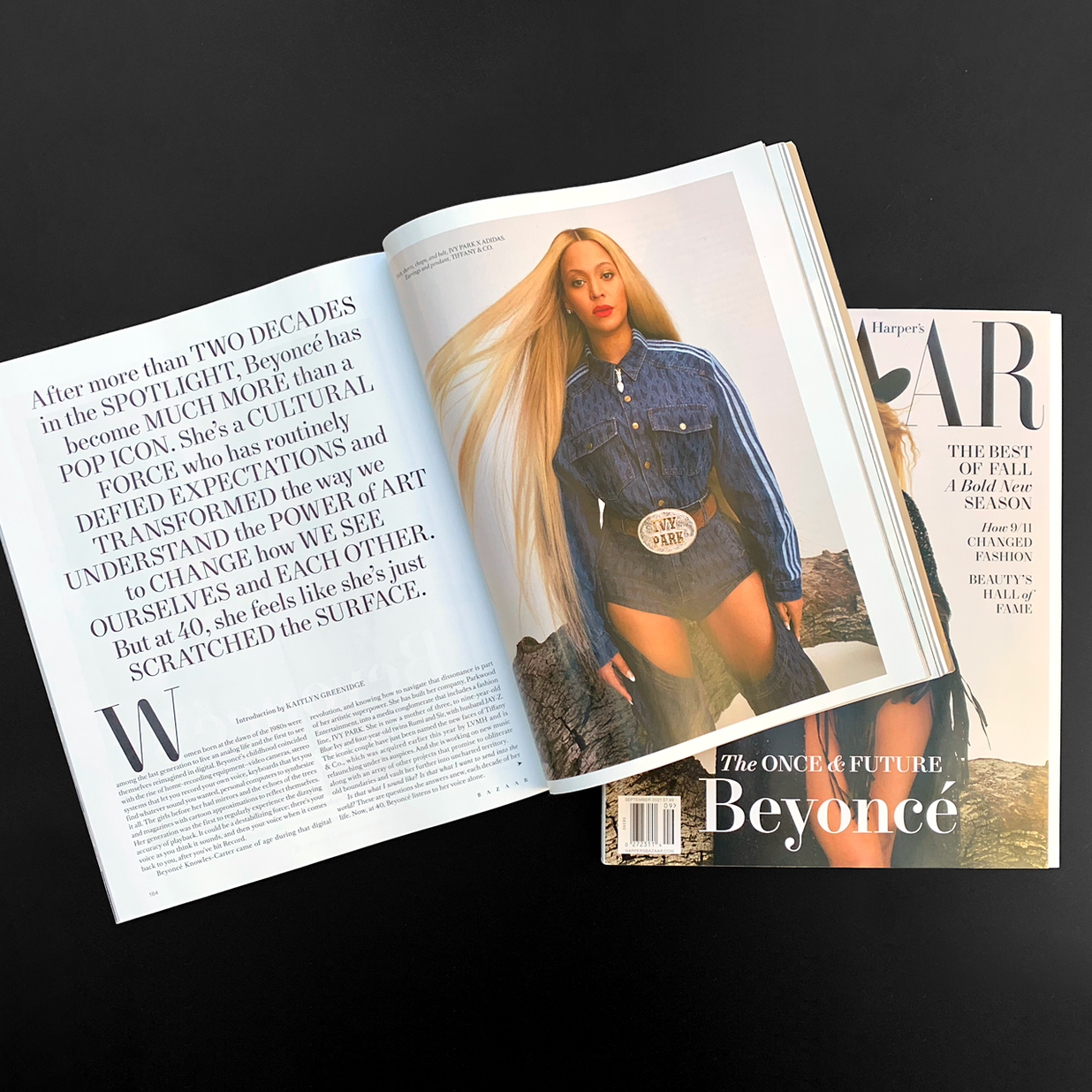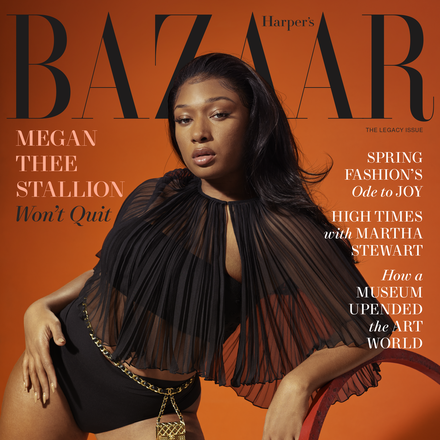
The NewParis Family
NewParis KingSize
NewParis Optical Sizes
NewParis KingSize
NewParis is rooted in the tradition of the French modern faces as cut by the Didots in the late 18th and 19th century. As such, it is distinguished by a high contrast between thick and thin strokes. This necessitates size-specific versions: NewParis Text has sturdier hairlines and works best in sizes below 18pt. For elegant headings, titles or big quotes, use the more filigree NewParis Headline. To ensure superfine strokes even in extra-large display settings, we offer a third cut. NewParis KingSize lends royal grace and beauty to text in sizes above 36pt. Some of the characteristic details of NewParis are inspired by historical models, including the rounded apexes in letters like ‘A’, ‘M’, or ‘W’. However, it is not a direct revival, but a contemporary interpretation of the genre, designed to meet the requirements of today.
NewParis Text and Headline each come in three weights with italics. NewParis KingSize additionally features a fourth ultralight weight, the majestic KingSize Air. The Collection totals in at 20 styles, providing plenty of options for covering a wide range of applications, from magazines and posters to catalogs and websites. Indeed designers already have put NewParis to great use in the fields of editorial design, fashion, packaging, and branding. It has been successfully adopted by art museums, cultural festivals and luxury restaurants, from Los Angeles to Salzburg.